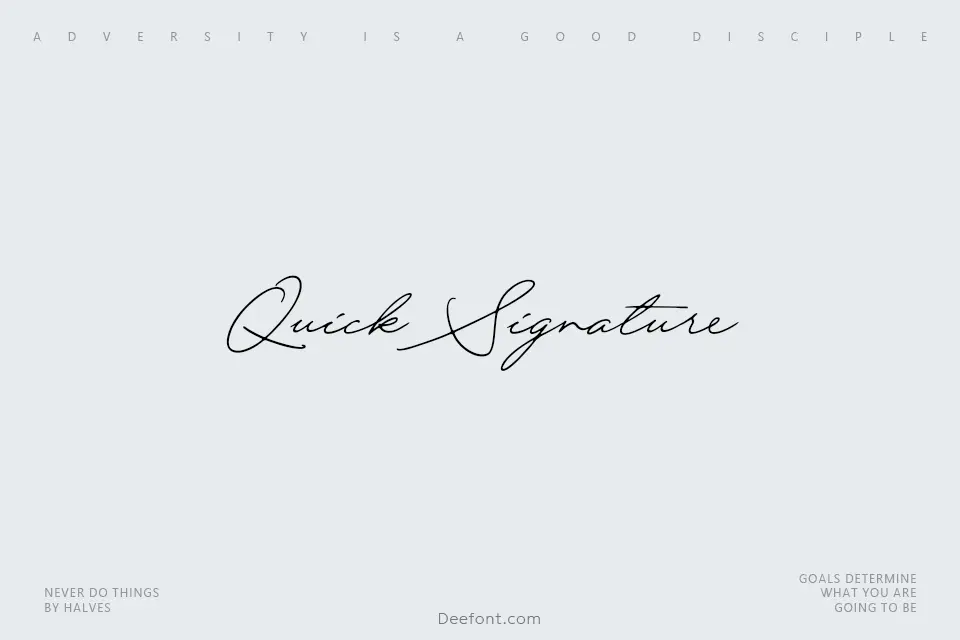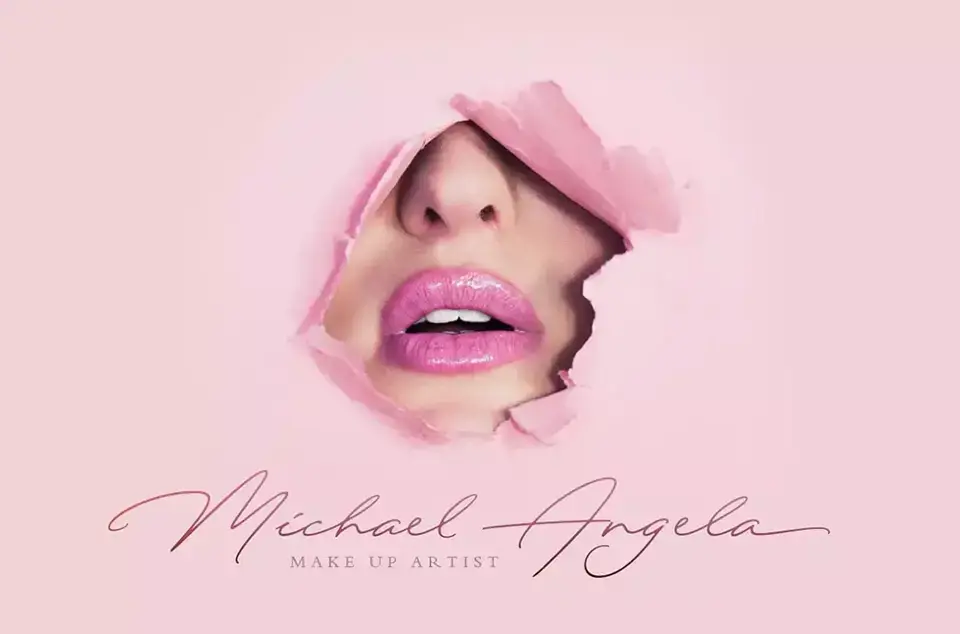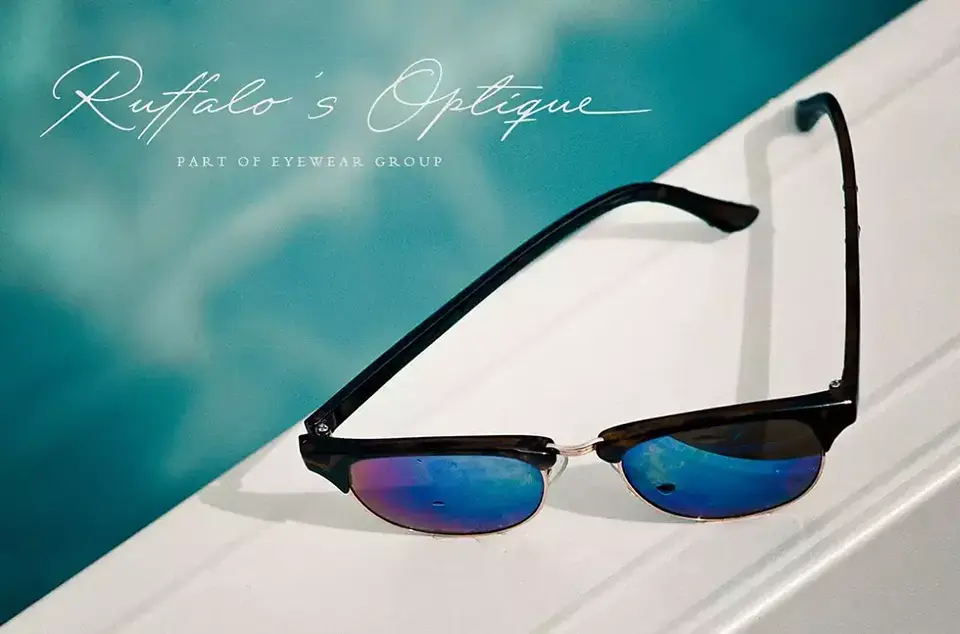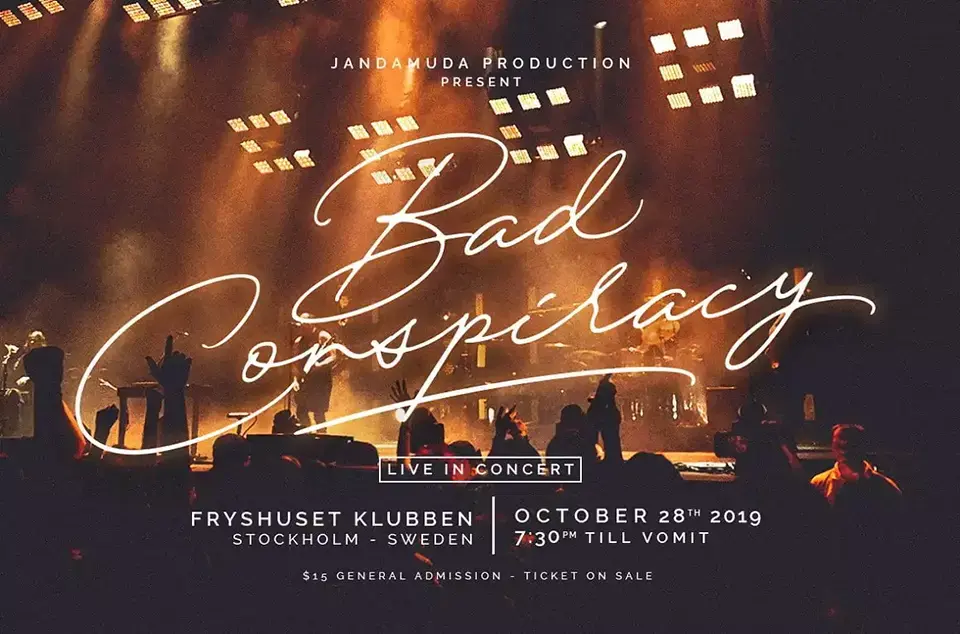
Quick Signature Font
Quick Signature is an elegant handwritten script typeface crafted by lettering on an iPad Pro, combining smooth curves with sophisticated calligraphic elements. This versatile font excels in creating refined signatures for business cards, upscale logos, wedding invitations, magazine spreads, book covers, and restaurant menus. With its fluid letterforms and balanced proportions, Quick Signature brings a luxurious, personal touch to cosmetics packaging, fashion designs, movie titles, and photography projects. The font’s naturally flowing strokes make it perfect for both headline and display purposes.